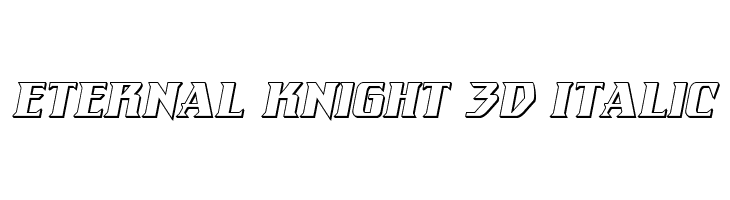
A bold, 3D italic font with a futuristic and dynamic style.
A bold, 3D font with angular, geometric shapes and a strong, dynamic presence.
A bold, italicized font with sharp, angular edges and a dynamic, medieval-inspired style.
A bold, expanded italic font with sharp angles and a futuristic style.
A bold, angular italic font with a modern, dynamic style.
A bold, italicized font with sharp, angular edges and a futuristic style.